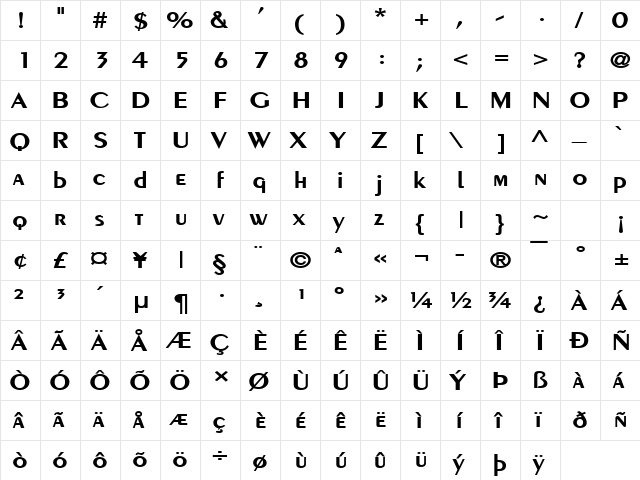
Pare Wide Bold
Design Context for Pare Wide Typeface
Pare Wide takes a measured approach to typography — its balanced proportions and neutral character make it a reliable workhorse for both digital and print work. The heavy weight commands attention and anchors typographic hierarchies.